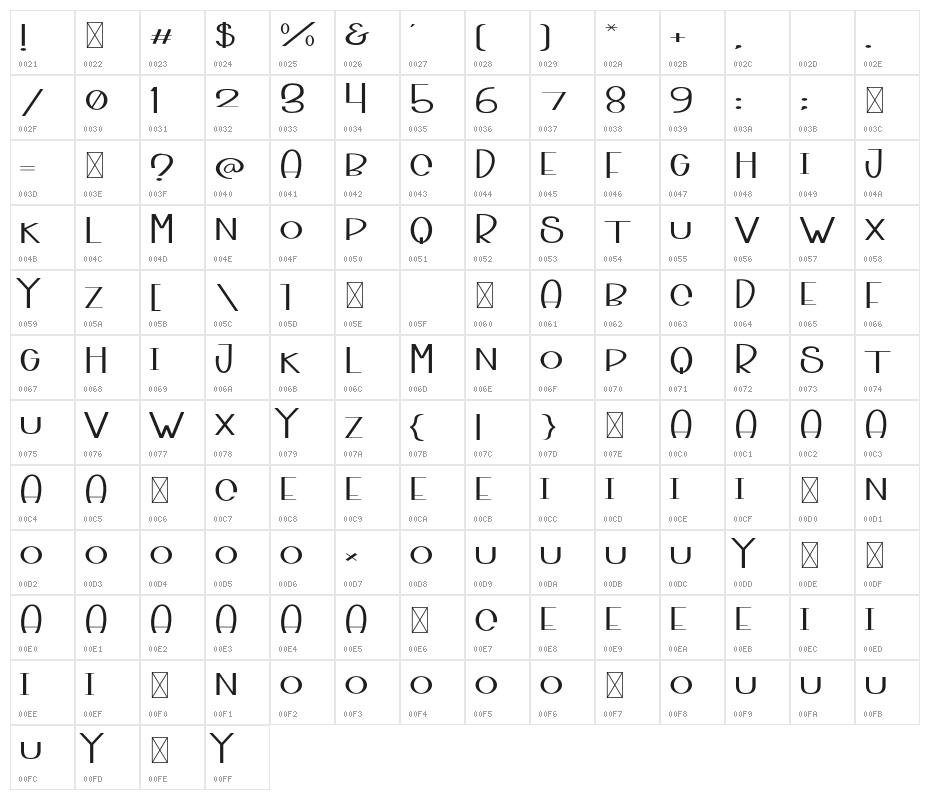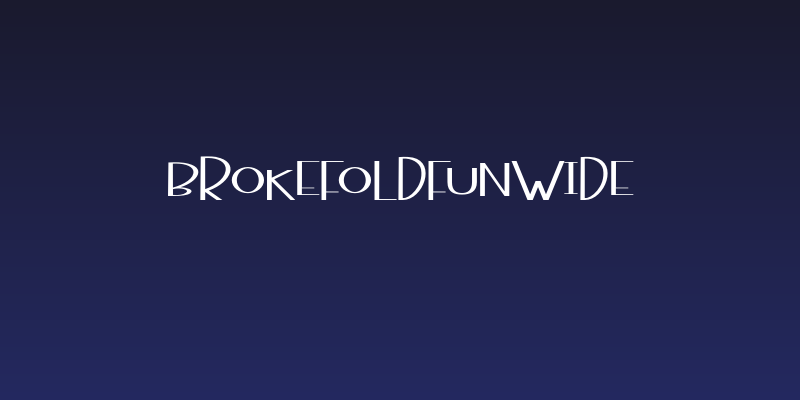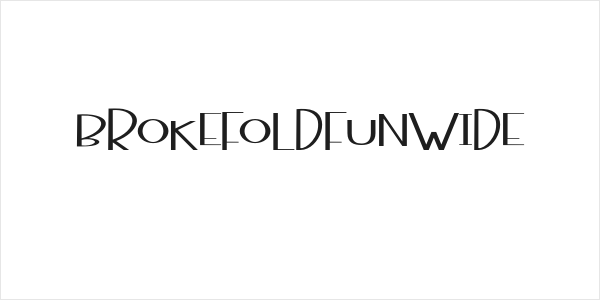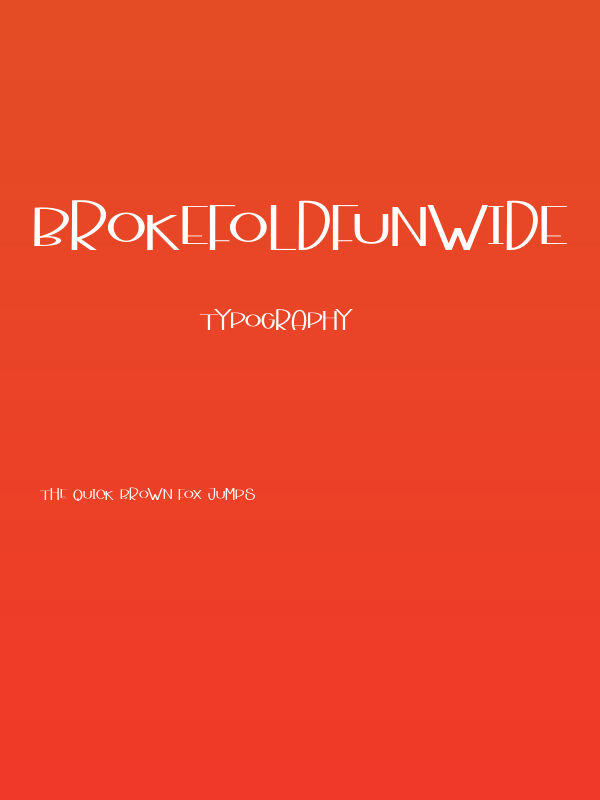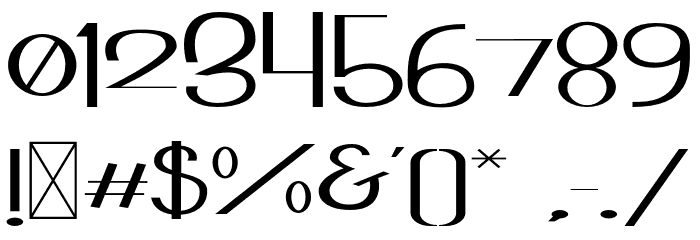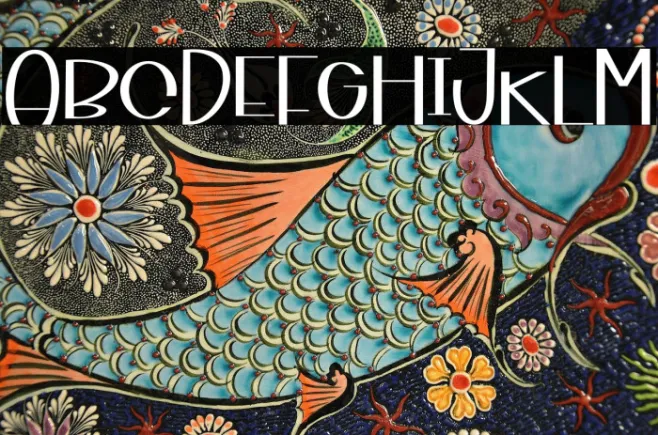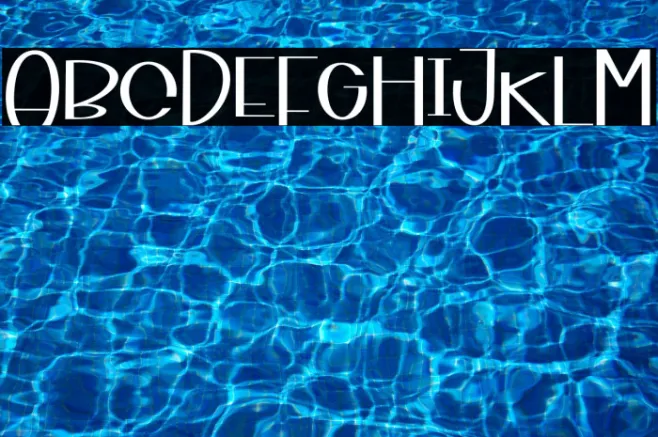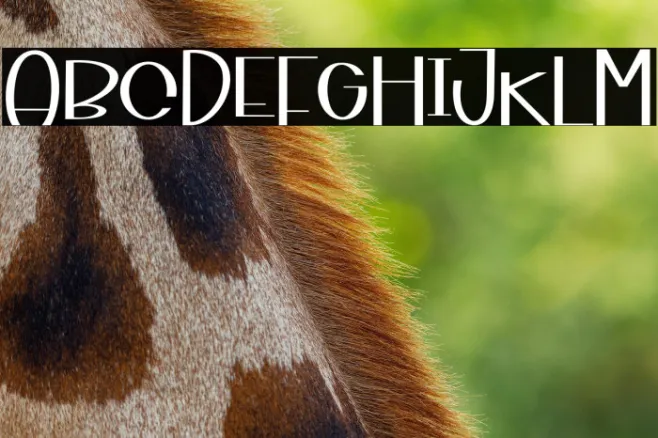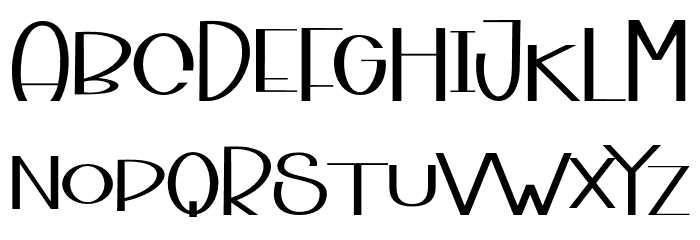
BrokefoldFunWide Font
BrokefoldFunWide Description
This font features a playful and artistic design with a unique blend of geometric and organic shapes. The uppercase letters have a distinct, bold appearance with sharp angles and curves, creating a dynamic and eye-catching look. The lowercase letters maintain a similar style, offering a cohesive and harmonious feel. The numerals are equally stylized, with a consistent weight and width that complements the alphabetic characters. Special characters are designed with the same attention to detail, ensuring they fit seamlessly into the overall aesthetic. The font's wide stance and creative flair make it ideal for projects that require a fun and engaging visual impact.
| Proposed Projects | Ideal for posters, branding, children's books, and creative advertising campaigns. |